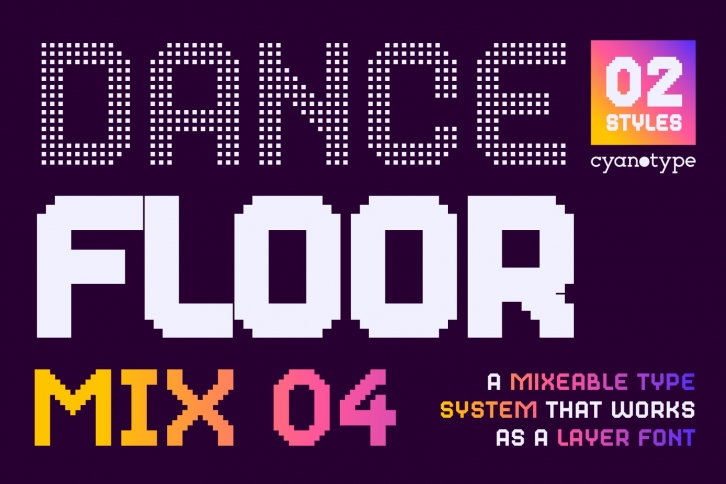
Dance Floor is a display typeface, a fusion of a layer font system with a pixel font structure. Dance Floor is a bold font for maximalist compositions, it works great at big sizes such as subhead, title, poster and capitular.
All the styles share the same structure to be overlayered and obtain new styles. Also, you can create faux ligatures by using multiples of -50 in tracking.
This Mix features 2 of more than 60 fonts. Check out other Dance Floor Mixes available.
• All Caps
• Diacritics, Cyrillic & Greek support
• Mixeable styles that can be overlayered
• Suitable for big sizes